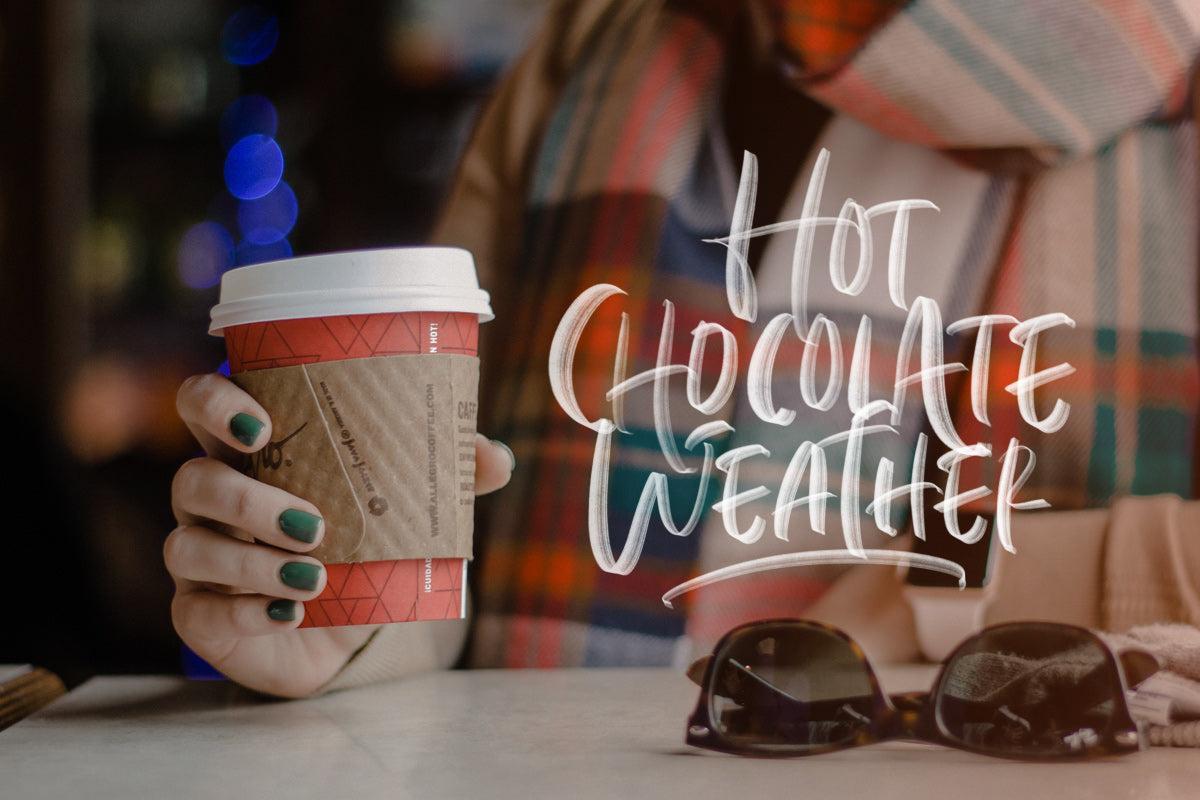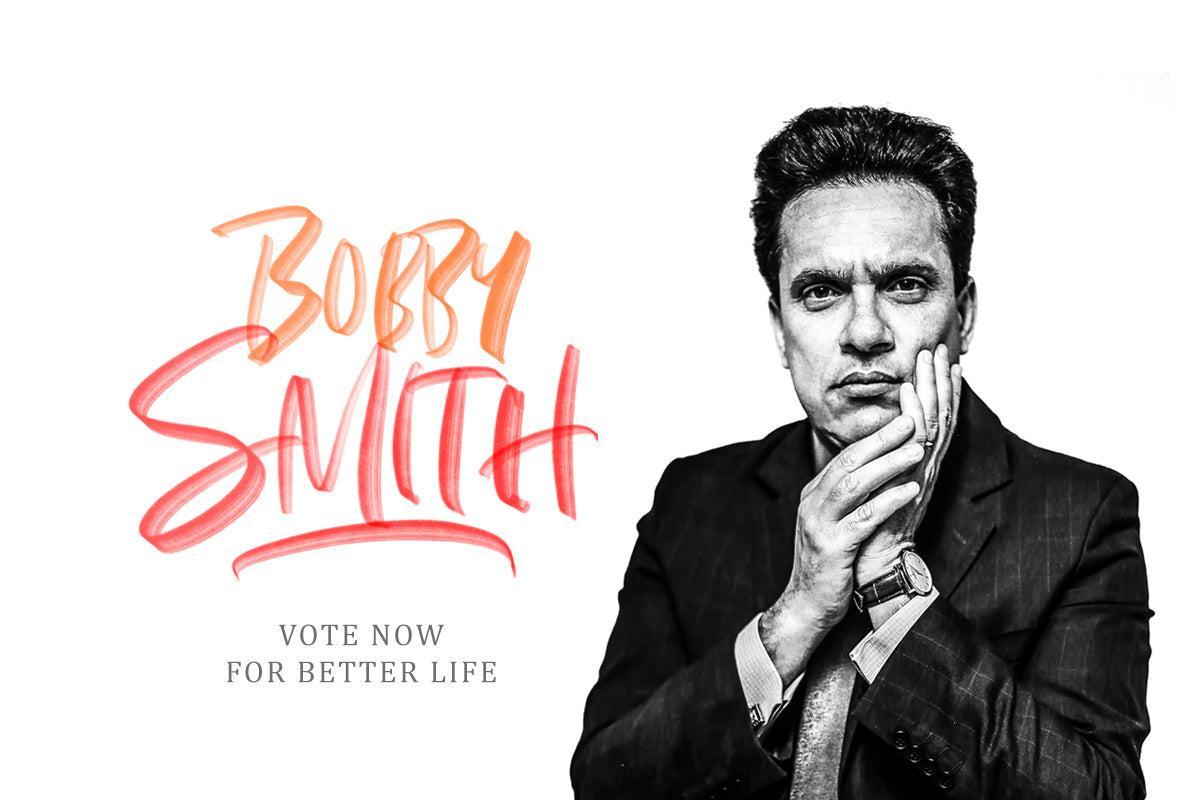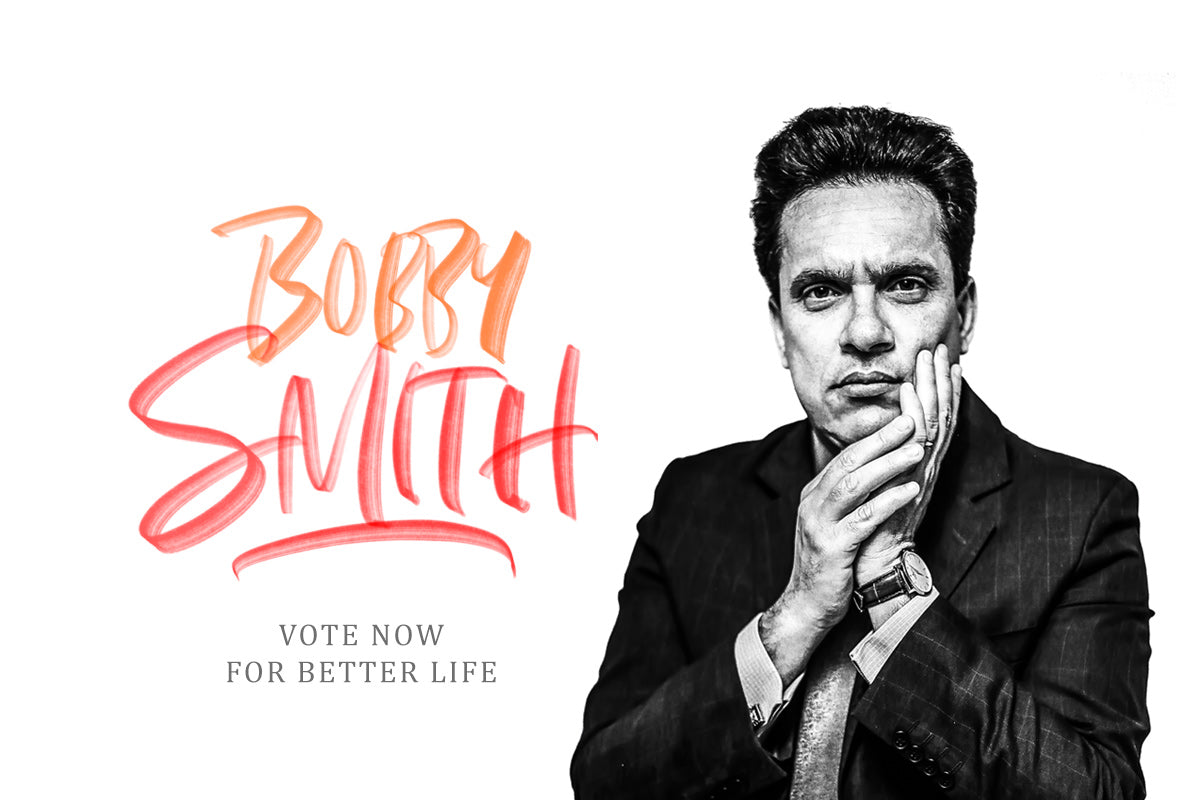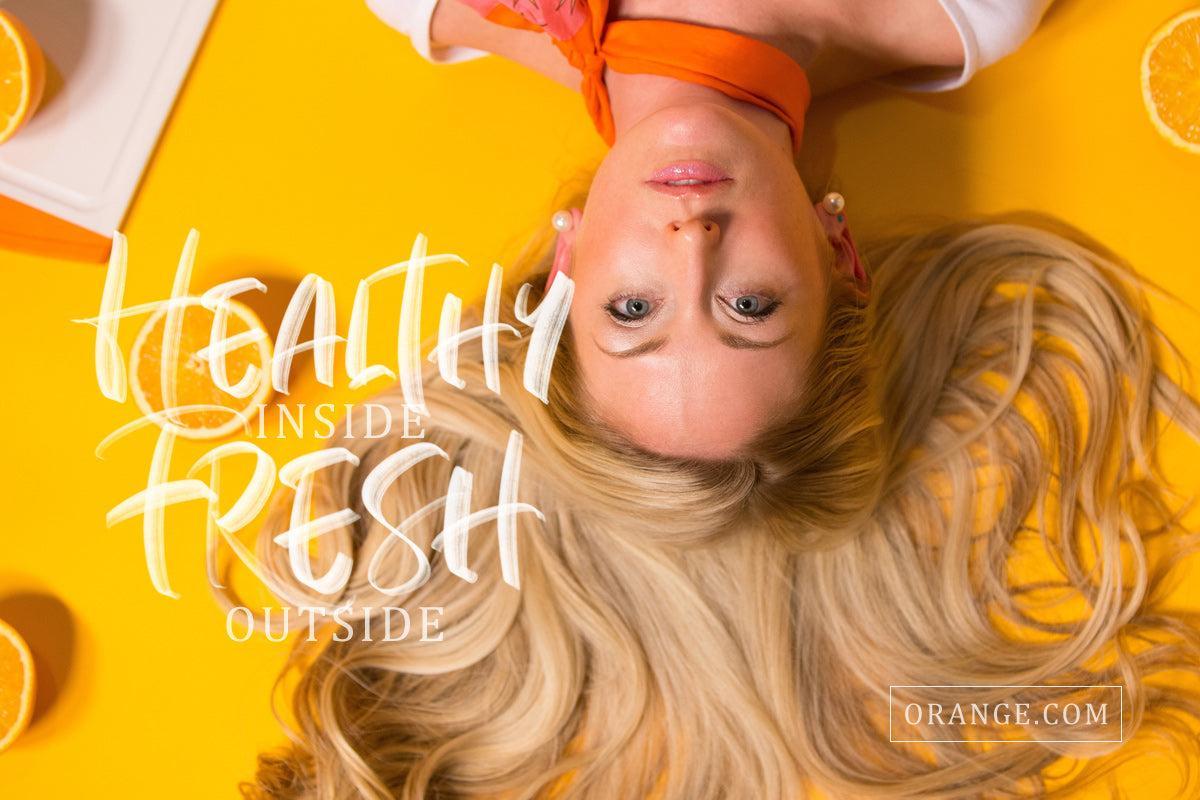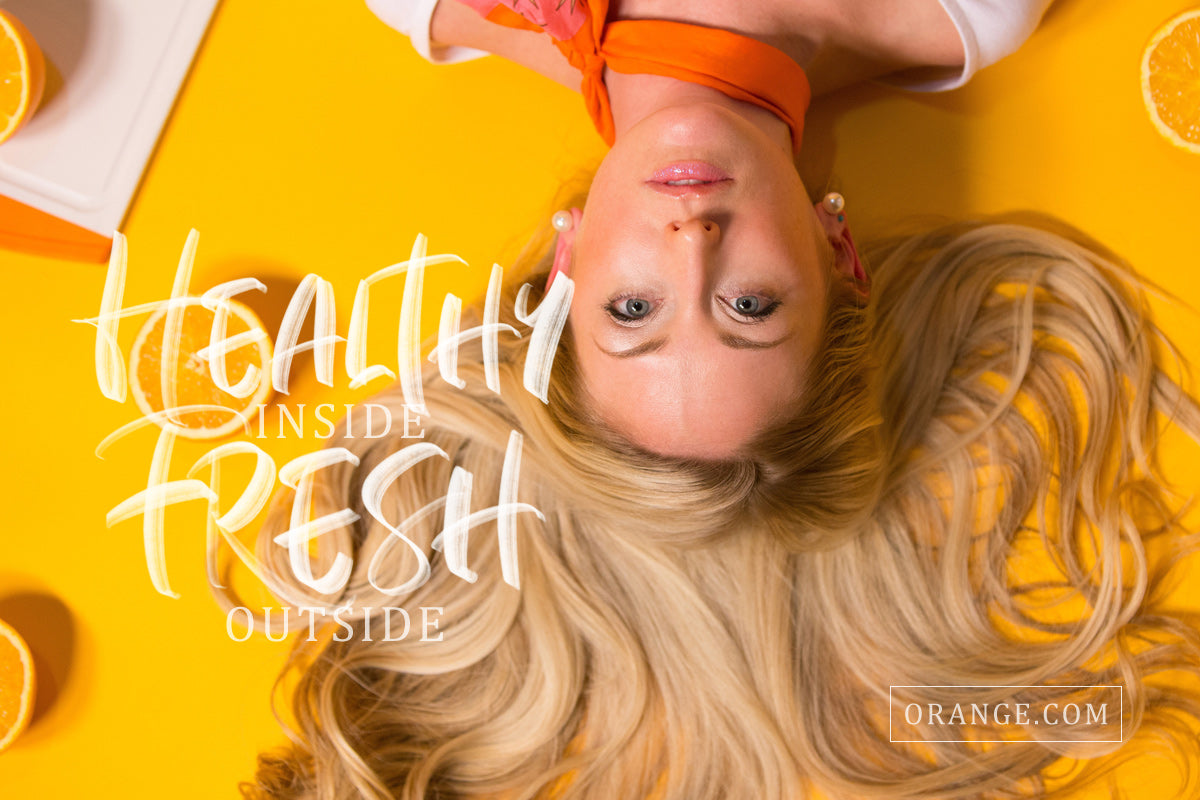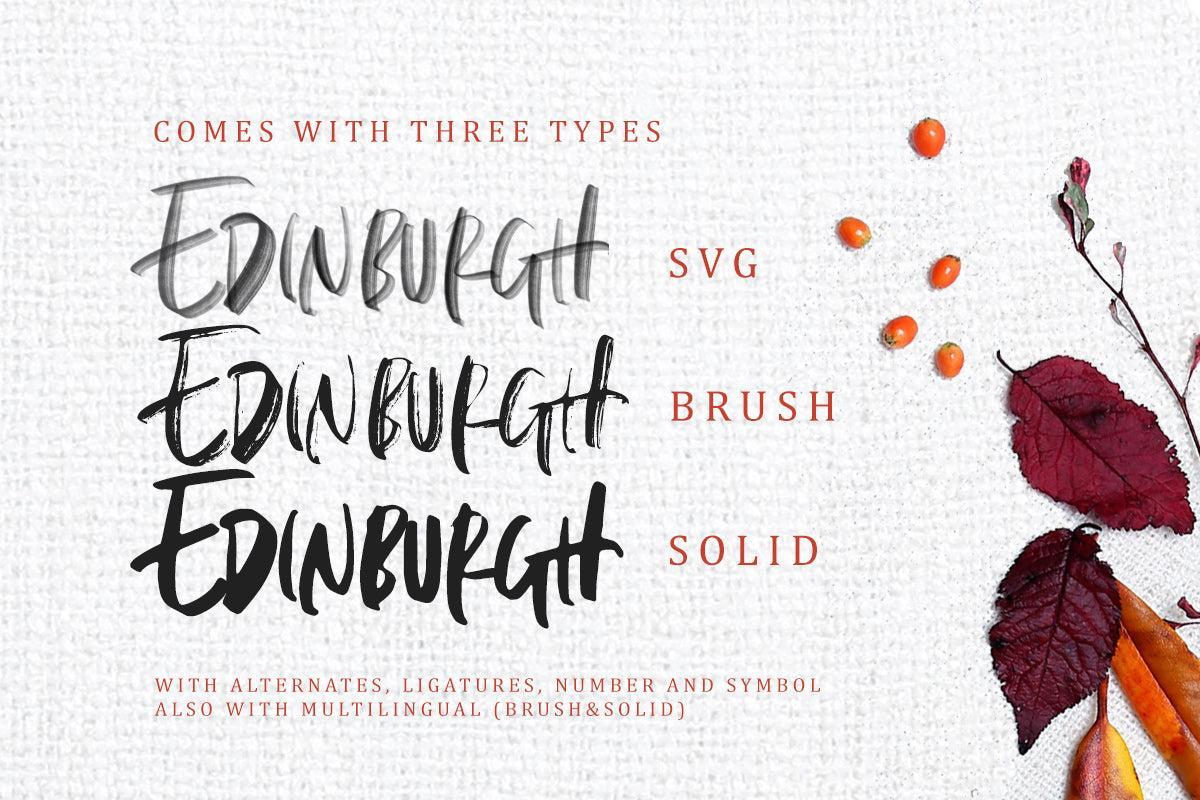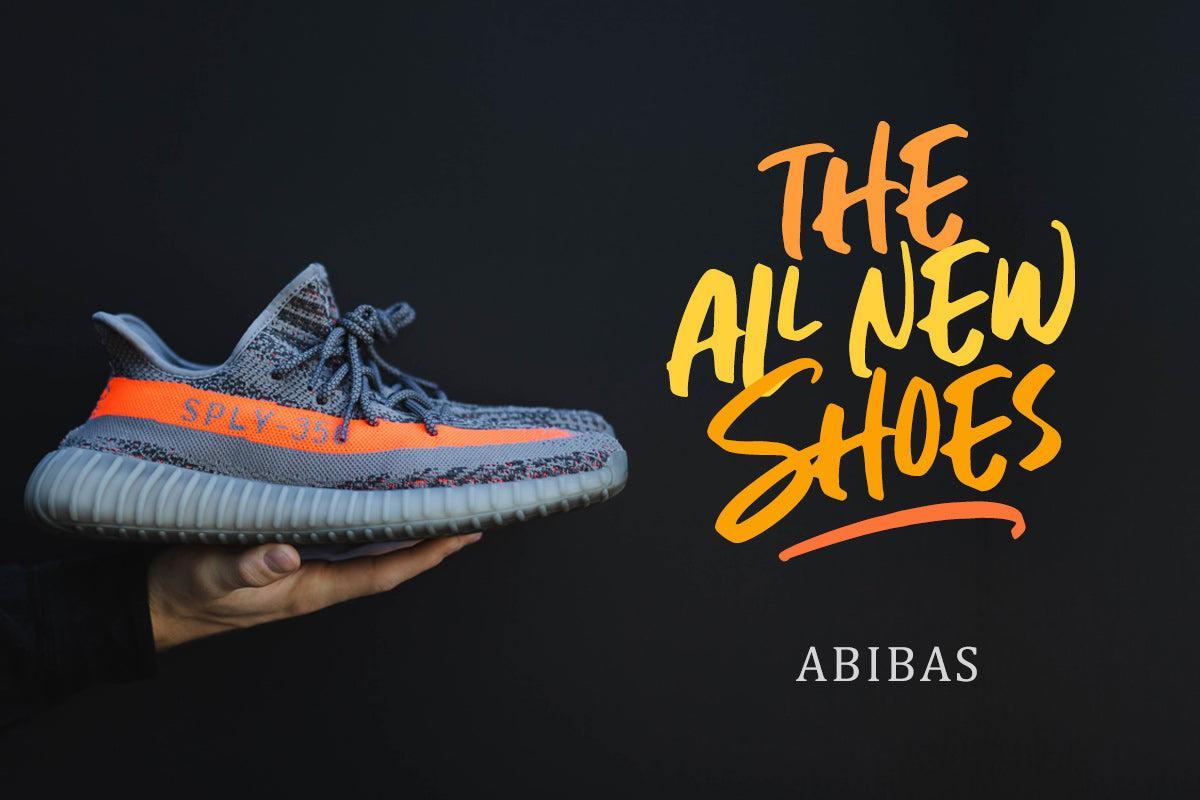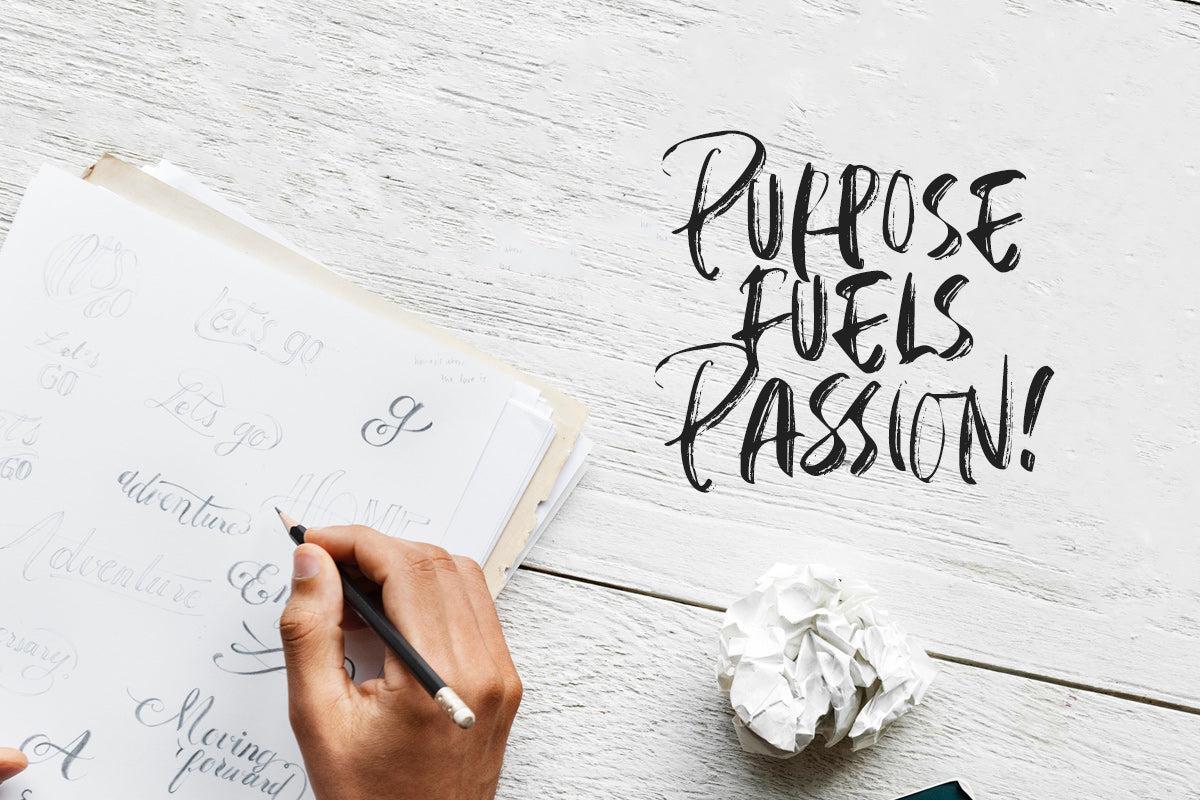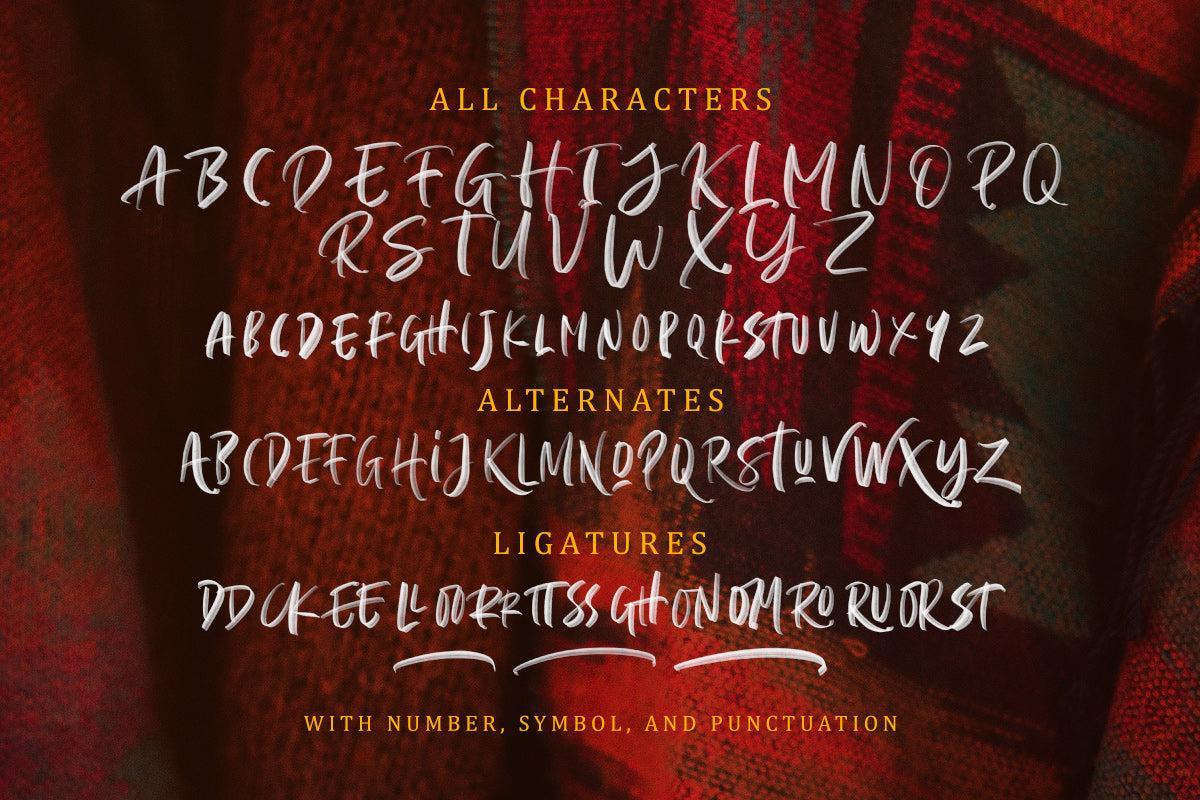
Edinburgh - SVG Font
Edinburgh is a handmade SVG font that includes additional formats, featuring ligatures and alternates for versatile design options. It is suitable for creating realistic handwriting effects and offers a textured appearance.